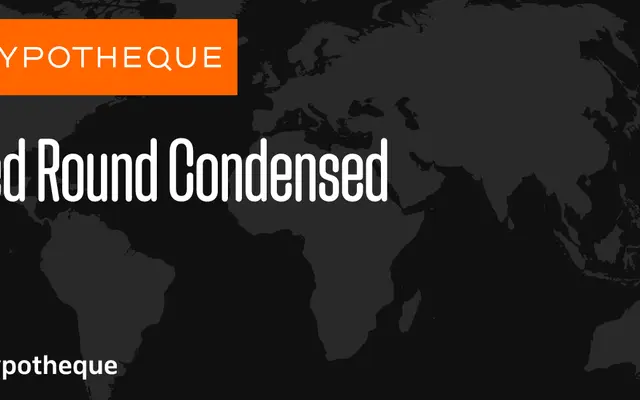
Zed Round Condensed specimen from Typotheque
One width variant within Typotheque's vast Zed system, a geometric sans with rounded terminals spanning nine widths, nine weights and three slope variants.
Zed Round Condensed sits within the Round subfamily of the Zed system, distinguished from the sharper Display cuts by its softened terminals. The full system runs from Extra-Compressed to Extra-Wide across Display, Round and Text optical subfamilies, with each weight available in upright, slanted and backslanted cuts. Cities serve as style names, giving the family an unusual naming convention that spans from Amsterdam at Hairline to Zaragoza at Black Slanted.
Part of the Zed system, a large geometric sans family with rounded terminals distinguishing the Round subfamily from the sharp-edged Display cuts, available across a wide range of widths and weights.